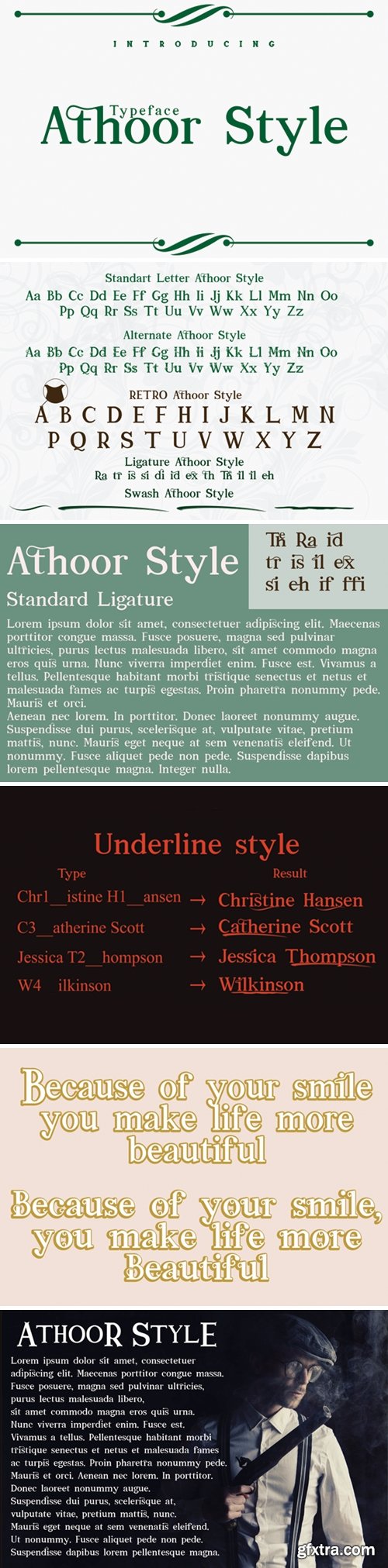
Athoor Style Font
Athoor Style is an incredibly distinct serif font. Masterfully designed to become a true favorite, this font has the potential to bring each of your creative ideas to the highest level!